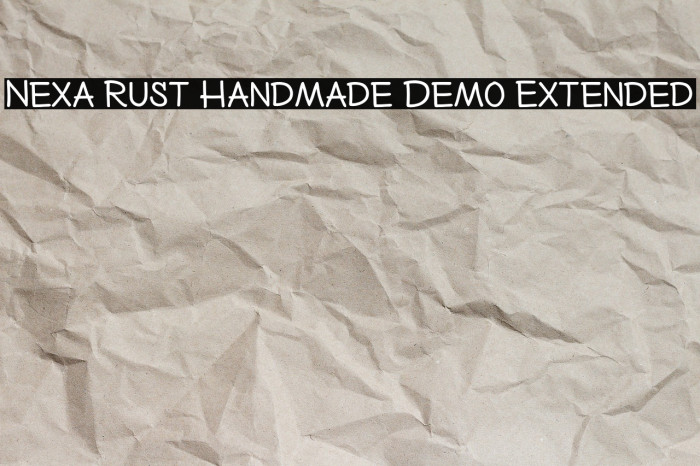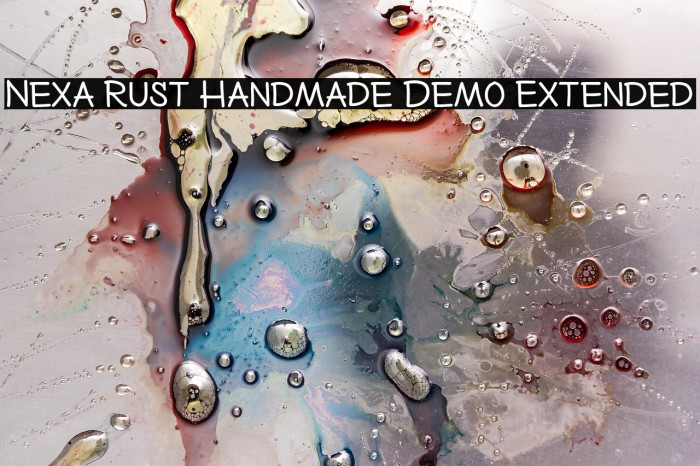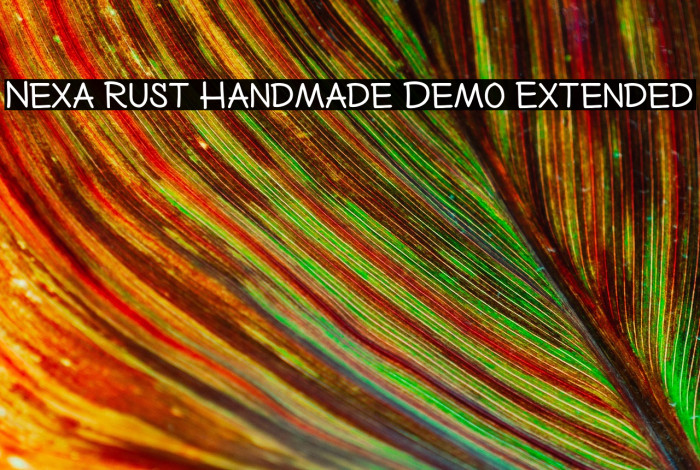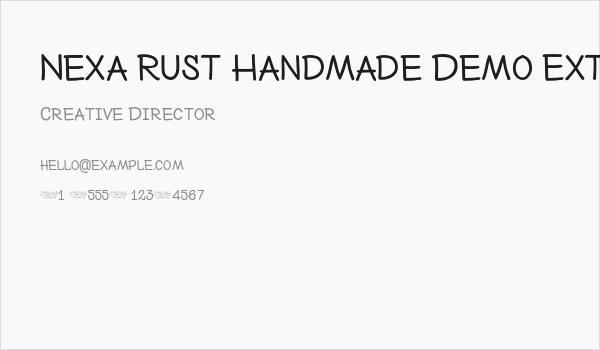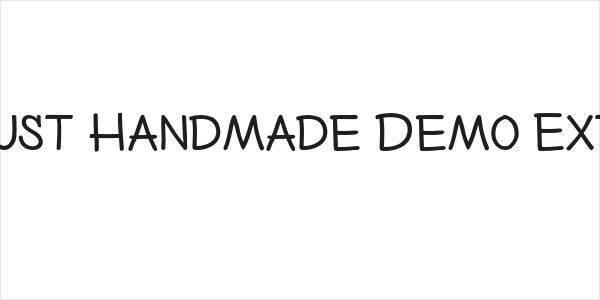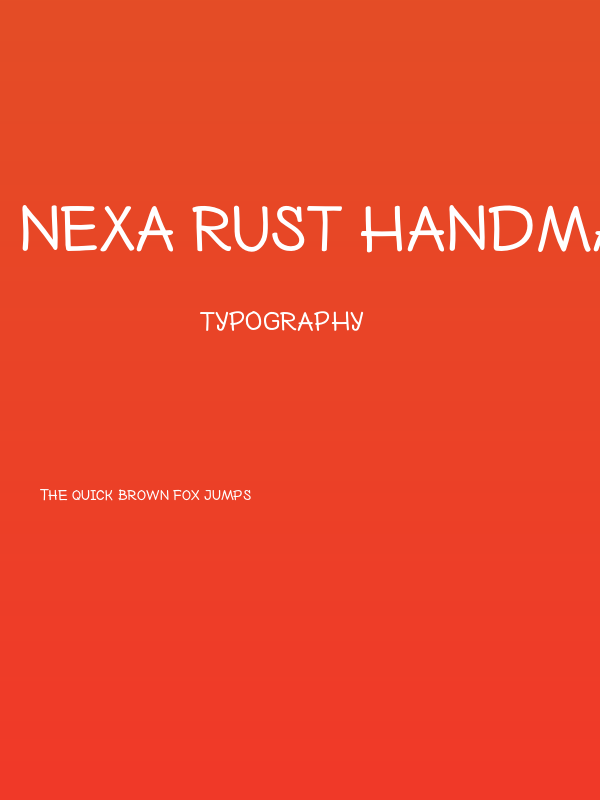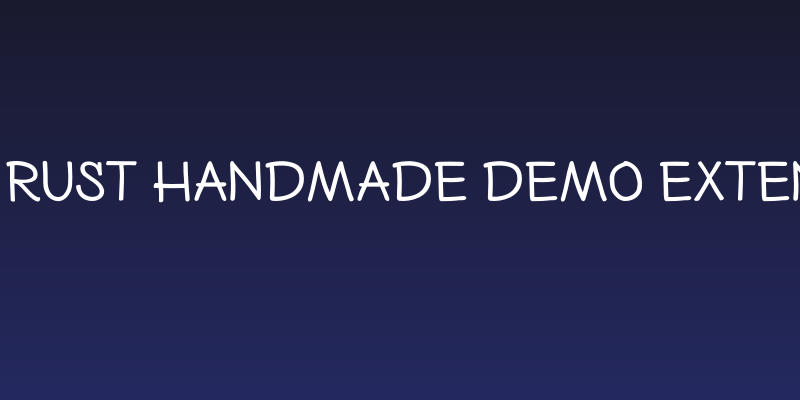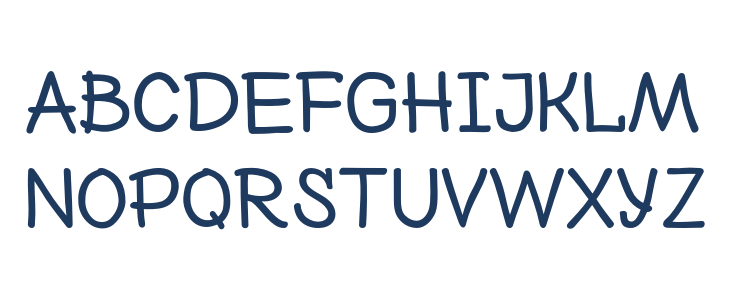
Nexa Rust Handmade Demo Extended Font
Nexa Rust Handmade Demo Extended Description
This font exhibits a handcrafted, rustic style with a playful and casual appearance. The letters are slightly irregular, giving it a personal and authentic feel. The strokes are consistent in width, providing a uniform look across all characters. The uppercase and lowercase letters maintain a cohesive design, with rounded edges and a slight slant that adds to its informal charm. The numerals and special characters follow the same design principles, ensuring a harmonious overall appearance. This font is ideal for projects that require a touch of warmth and personality.
| Proposed Projects | Great for branding, packaging, invitations, and any project needing a personal touch. |